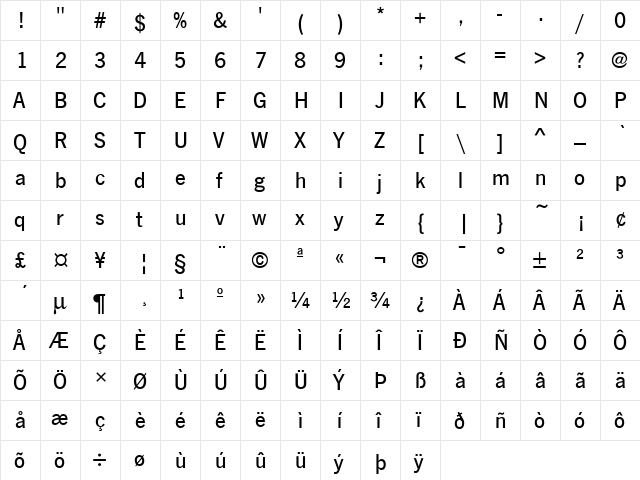
News Gothic T Medium
Design Context for News Gothic T Typeface
News Gothic T takes a clean, functional approach — its unadorned letterforms prioritise legibility and work reliably across screen and print environments.
Font Pairing: Works well alongside a characterful serif or display font that can carry the expressive load while News Gothic T handles the functional copy.
Pro Tip: Pair News Gothic T with a display or serif font for headlines — its neutral character makes it an excellent supporting player in complex typographic systems.